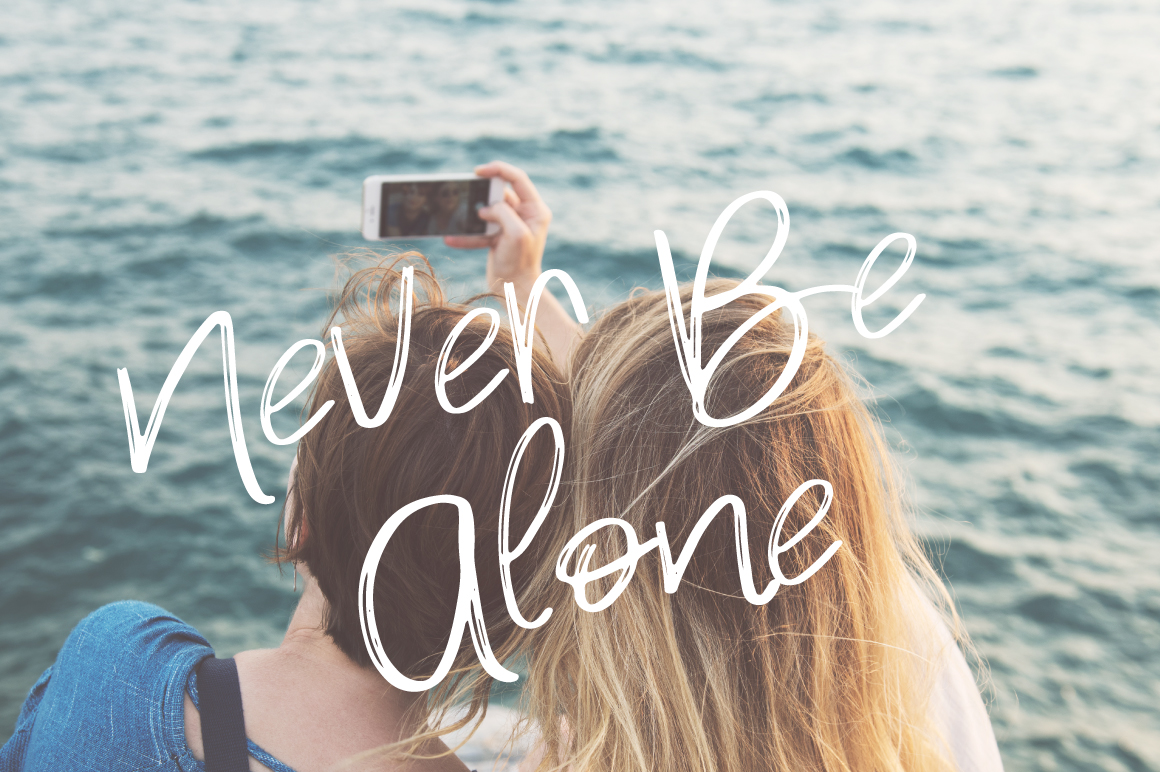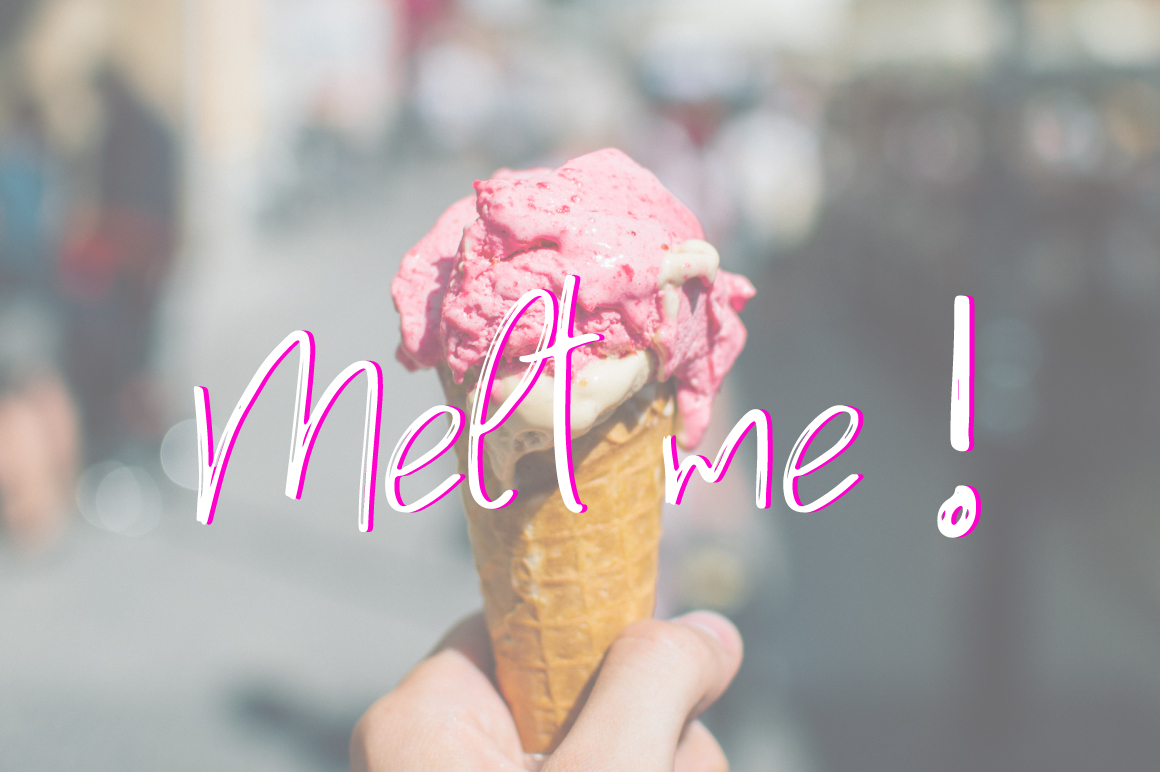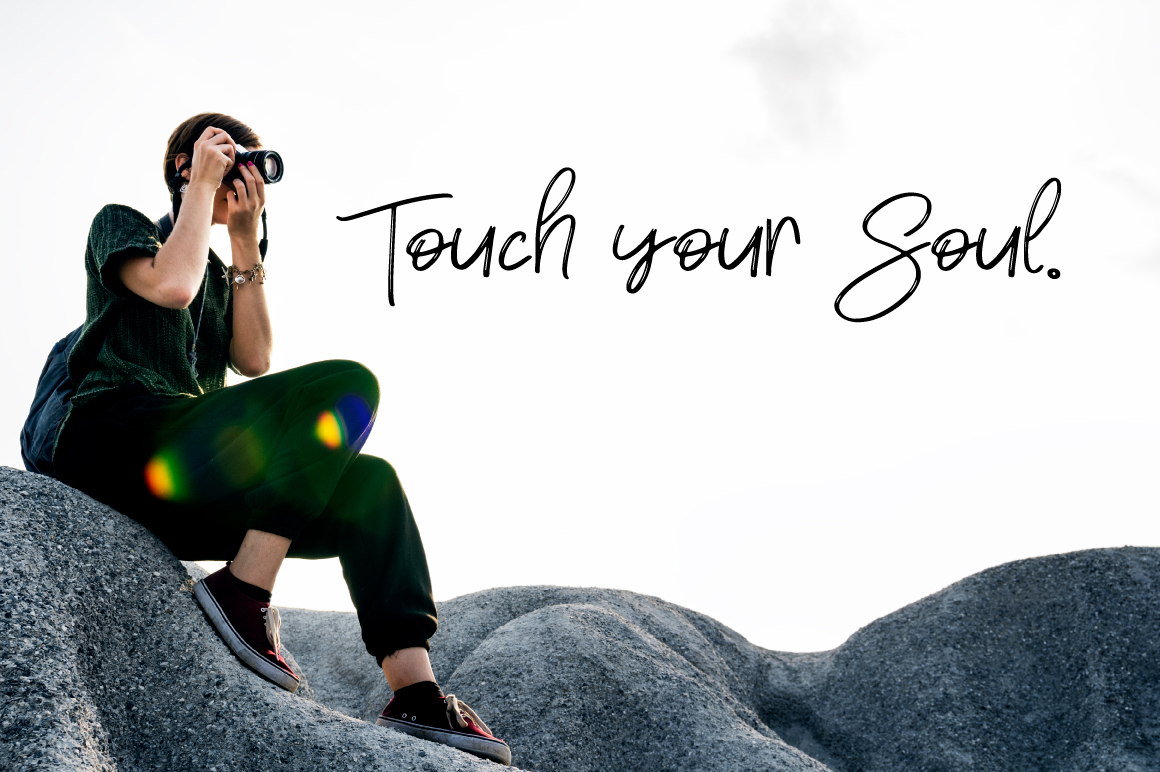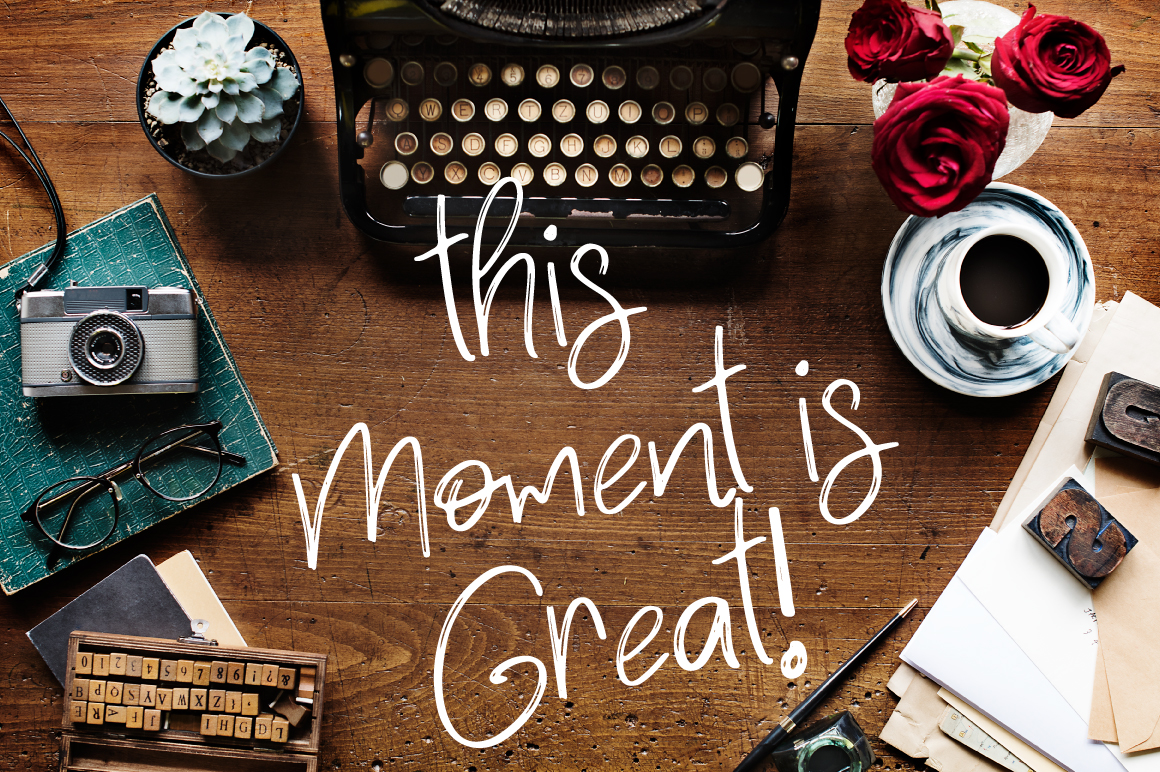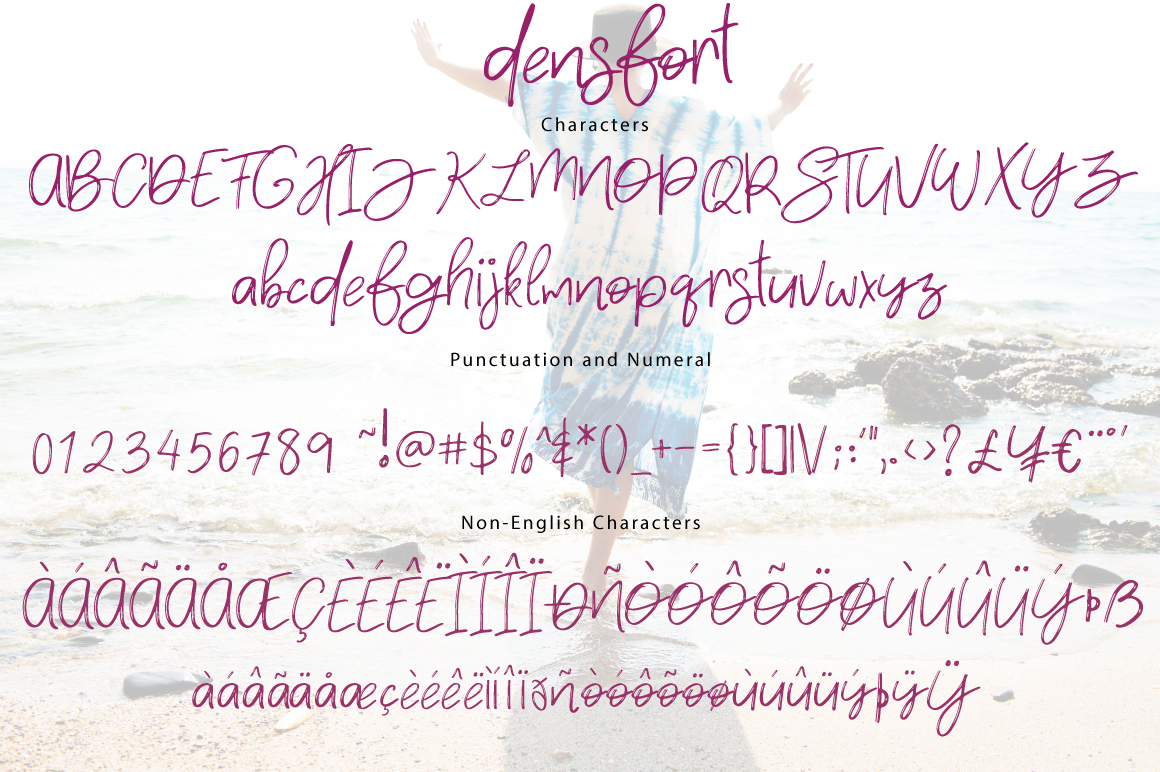
Densfort Font: Adding a Personal Touch to Your Designs
In the world of design, fonts play a crucial role in conveying the tone and personality of a project. Whether you’re a designer, crafter, or simply someone who loves to create, finding the right font can make all the difference. If you’re looking for a font that adds a personal touch to your invites, banners, and other designs, look no further than Densfort Font.
What is Densfort Font?
Densfort is a beautiful handwritten font that is perfect for adding a personal touch to your designs. With its unique and elegant script, Densfort Font is ideal for use on invites, banners, and other creative projects. Its handwritten nature gives it a warm and friendly feel, making it perfect for designs that require a personal touch.
Characteristics of Densfort Font
Densfort Font has several characteristics that make it stand out from other fonts. Some of its key features include:
- Handwritten script: Densfort Font has a beautiful handwritten script that gives it a personal and unique feel.
- Elegant and refined: Despite being handwritten, Densfort Font has an elegant and refined quality that makes it perfect for use on a wide range of designs.
- Versatile: Densfort Font is highly versatile and can be used on a wide range of designs, from invites and banners to social media graphics and more.
- Overlay friendly: Densfort Font works great as an overlay on pictures, making it perfect for use on photography-based designs.
Uses for Densfort Font
Densfort Font is a highly versatile font that can be used on a wide range of designs. Some popular uses for Densfort Font include:
- Invitations: Densfort Font is perfect for use on invitations, giving them a personal and unique touch.
- Banners: Densfort Font works great on banners, adding a touch of elegance and sophistication.
- Social media graphics: Densfort Font is perfect for use on social media graphics, such as Instagram posts and Facebook graphics.
- Photography: Densfort Font works great as an overlay on pictures, making it perfect for use on photography-based designs.
- Crafting: Densfort Font is also popular among crafters, who use it to add a personal touch to their handmade projects.
Why Choose Densfort Font?
There are many reasons why designers and crafters choose Densfort Font for their projects. Some of the benefits of using Densfort Font include:
- Unique and personal: Densfort Font adds a unique and personal touch to your designs, setting them apart from others.
- Elegant and refined: Densfort Font has an elegant and refined quality that makes it perfect for use on a wide range of designs.
- High-quality: Densfort Font is a high-quality font that is designed to produce crisp and clear results.
Tips for Using Densfort Font
Here are a few tips for using Densfort Font in your designs:
- Use it sparingly: Densfort Font is a bold font, so it’s best to use it sparingly to avoid overwhelming your design.
- Pair it with other fonts: Densfort Font pairs well with other fonts, so don’t be afraid to experiment with different combinations.
- Experiment with colors: Densfort Font works well in a variety of colors, so don’t be afraid to experiment with different hues and shades.
Densfort Font is a beautiful handwritten font that is perfect for adding a personal touch to your designs. With its unique and elegant script, Densfort Font is ideal for use on invites, banners, and other creative projects. Whether you’re a designer, crafter, or simply someone who loves to create, Densfort Font is a great choice for anyone looking to add a personal touch to their designs.